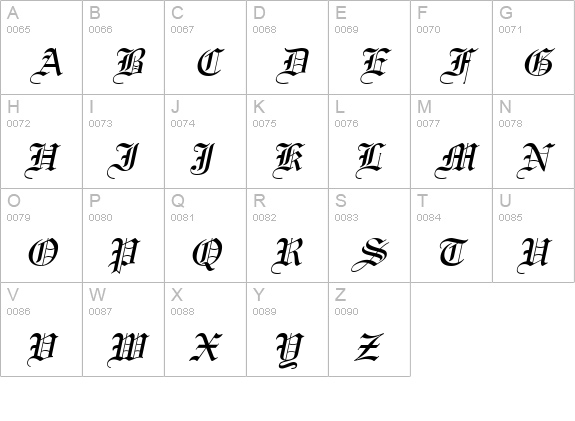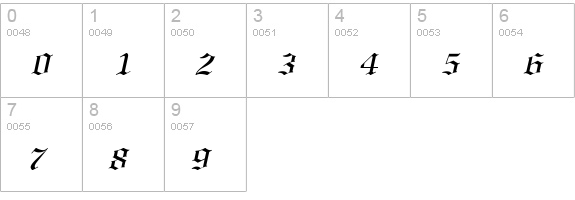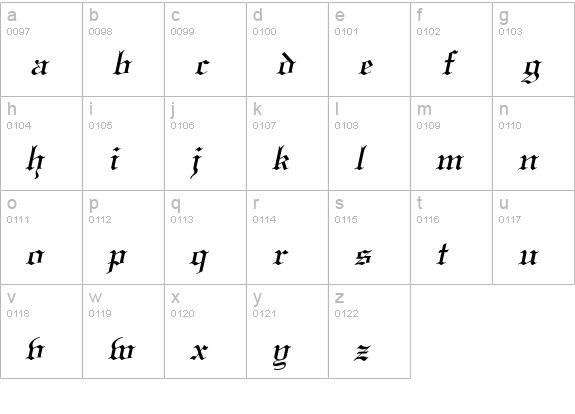
Certificate Italic Font Details
Certificate Italic is a distinctive, italic variant in the Certificate typeface family \xE2\x80\x94 well suited to design and typography projects.
Certificate Italic font is a timeless and elegant typeface that exudes sophistication and class. With its sleek and stylish design, this font is perfect for creating certificates, awards, invitations, and other formal documents. The slanted italic style adds a touch of flair and elegance to any project. Best of all, Certificate Italic font is available for free download at FontsMarket.com, making it accessible to everyone looking to add a touch of refinement to their designs. Whether you're designing a certificate for an academic achievement or creating an elegant wedding invitation, this font is sure to elevate your project to the next level. Download Certificate Italic font today and bring a touch of timeless elegance to your designs.